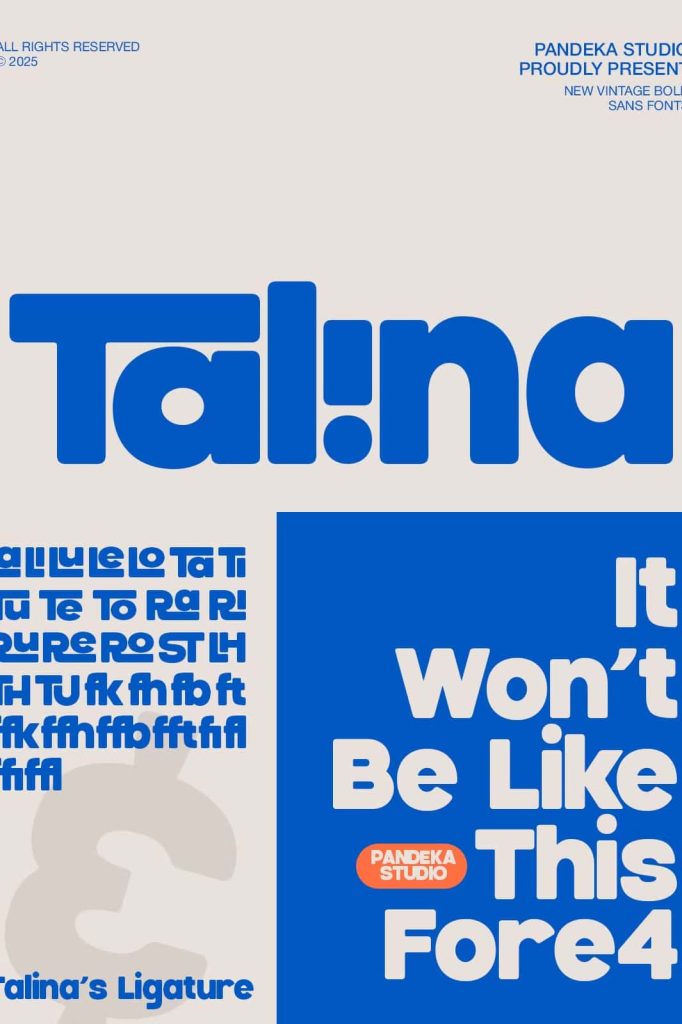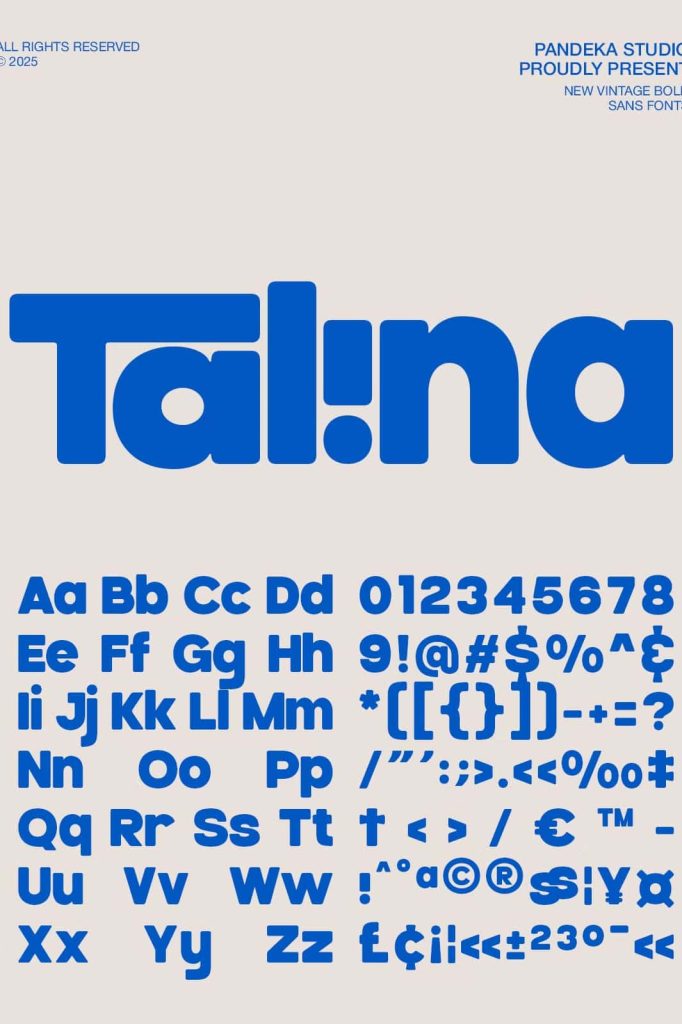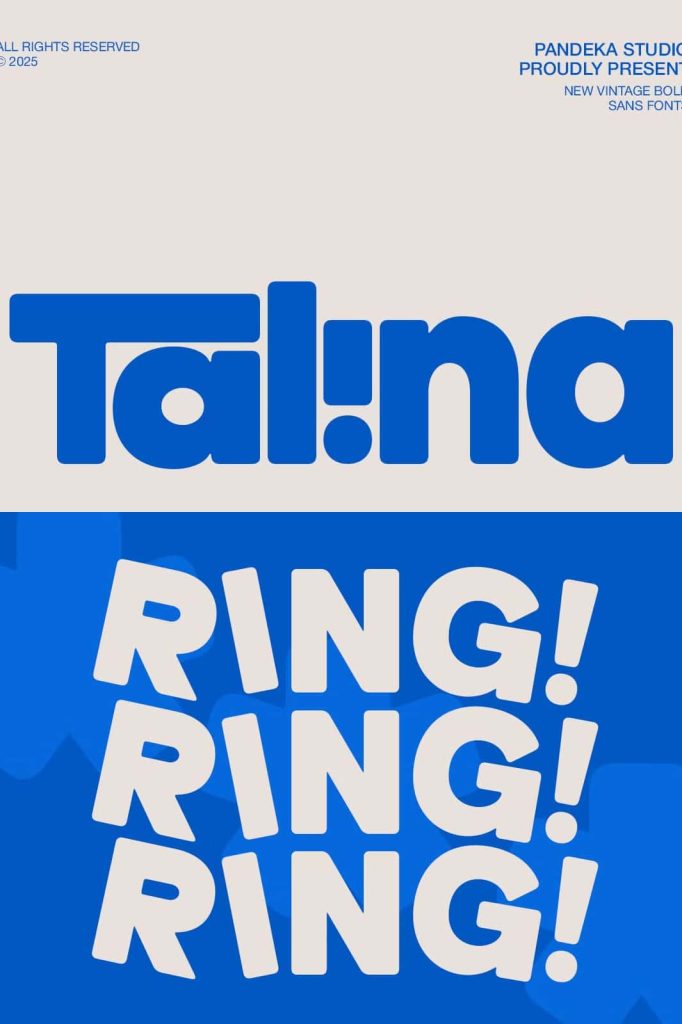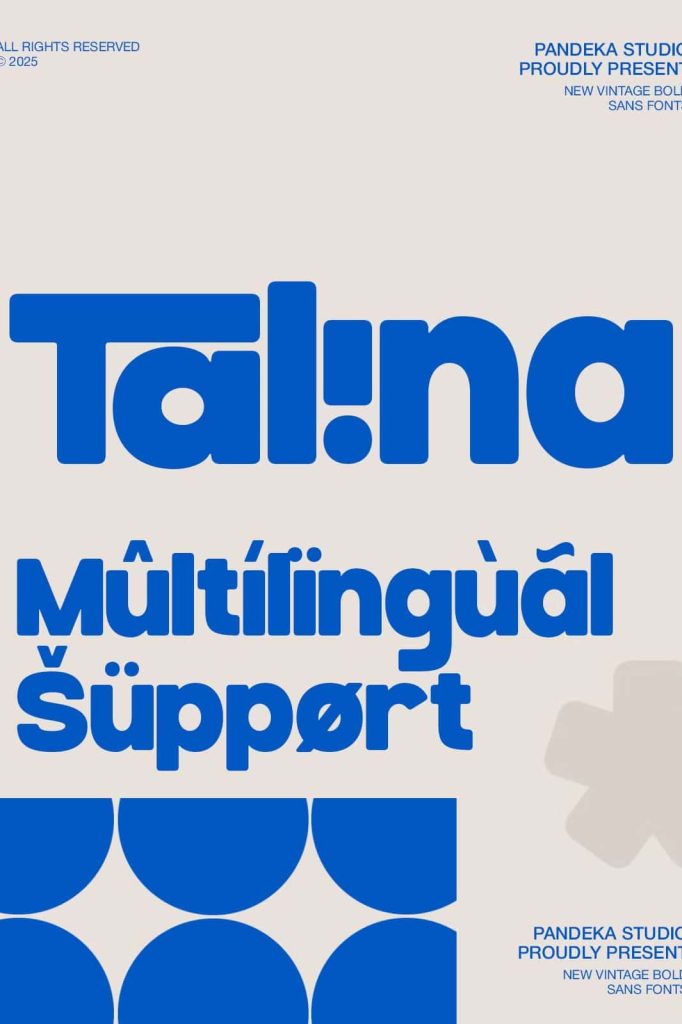
Talina Bold Rounded Sans Serif: Playful Typography That Stands Out
A Bold and Friendly Typeface with Strong Personality
Talina is a bold rounded sans serif typeface that instantly captures attention with its lively and expressive design. Built with soft curves and thick letterforms, this font brings a cheerful and approachable tone to any project. Its bubbly personality makes it an excellent choice for designs that aim to communicate warmth, energy, and positivity.
The rounded edges soften the bold weight, creating a balanced look that feels both strong and friendly. This unique combination allows Talina to stand out without appearing aggressive or overwhelming. Instead, it invites the viewer in with a welcoming and engaging visual presence.
Designed to Attract Attention with Clarity
Talina does more than just look fun—it performs exceptionally well in delivering clear and readable messages. The bold structure ensures high visibility, making it ideal for headlines and display text. At the same time, the smooth curves improve readability, even at larger sizes or from a distance.
This makes Talina a reliable choice for designers who need a font that not only grabs attention but also communicates effectively. Whether you use it in print or digital formats, it maintains clarity and consistency across different mediums.
Key Features
- Bold rounded sans serif style with a playful and modern look
- Soft curves that enhance readability and visual appeal
- Strong presence for headlines and display typography
- Friendly and approachable character design
- Highly legible across various sizes and formats
Perfect for Fun and Engaging Design Projects
Talina thrives in creative projects that require a vibrant and energetic tone. Its playful design makes it especially suitable for kids-related products, where a friendly and inviting style is essential. From educational materials to toy packaging, Talina helps create designs that feel exciting and accessible.
In food packaging, Talina adds a sense of fun and freshness. Its rounded forms evoke comfort and enjoyment, making it ideal for brands that want to appear approachable and appealing. Whether you design snack labels, beverage branding, or restaurant menus, this typeface enhances the overall visual experience.
Talina also excels in poster design and bold advertising campaigns. Its strong weight ensures that headlines stand out, even in crowded visual environments. Use it to create impactful messages that capture attention quickly and leave a lasting impression.
Versatile for Branding and Visual Identity
When it comes to branding, Talina offers a distinctive voice that sets your identity apart. Its combination of boldness and friendliness helps brands communicate confidence while remaining relatable. This makes it an excellent choice for startups, creative businesses, and lifestyle brands that want to connect with their audience.
You can use Talina across a wide range of branding materials, including logos, packaging, social media graphics, and promotional content. Its consistent style ensures that your brand maintains a cohesive and recognizable look across all platforms.
The font adapts easily to different design styles, whether you aim for a colorful and playful theme or a clean and modern layout. This flexibility allows you to experiment with creativity while maintaining a strong visual identity.
Why Choose Talina
Talina stands out as a typeface that combines bold impact with friendly charm. It simplifies the process of creating eye-catching designs by offering a ready-to-use solution that feels both modern and engaging. Designers can rely on its strong visual presence to deliver messages effectively without sacrificing readability.
If you want a font that brings energy, personality, and clarity to your work, Talina is a powerful choice. Its playful nature and versatile application make it a valuable addition to any design toolkit, helping you create memorable and visually appealing projects with ease.